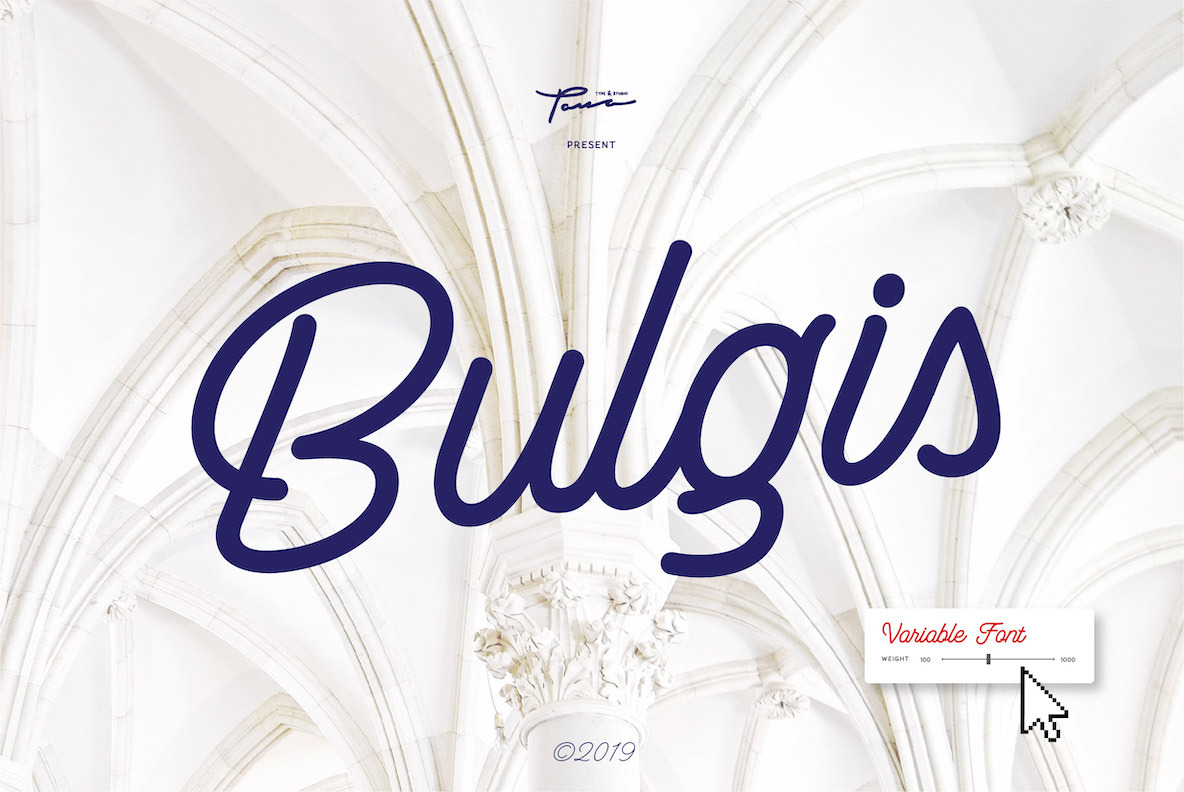
Bulgis - Variable Script Font
Bulgis script font is a monoline script font inspired by retro scripts. The Bulgis script font comes with three family weights and of course the Variable Font format is available so that it's easy to use to choose the desired weight for design. And supported opentype features that make it more natural and attractive to the needs of designers. Made with care and this font is suitable for digital lettering, logos, t-shirts, print, business cards, branding materials, quotes, nature photography, etc.
Featured:
- Terminal Forms ( Contextual Alternates )
- Initial Forms ( Contextual Alternates )
- Stylistic Set